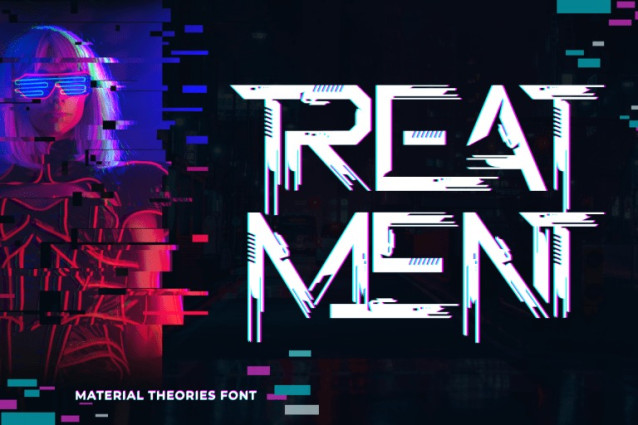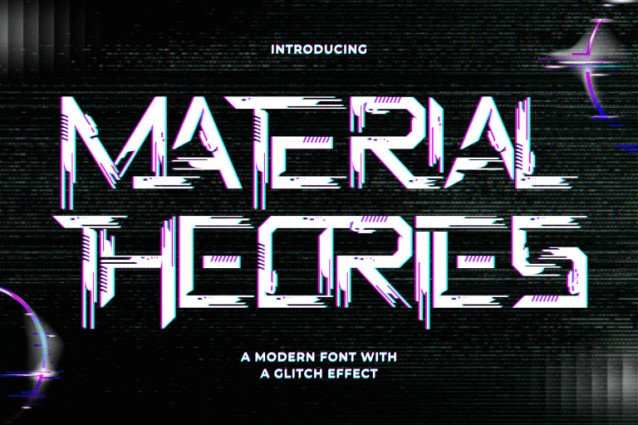
Material Theories Font
MATERIAL THEORIES – CYBERPUNK FONT is a glitch-inspired futuristic display sans serif typeface designed for bold digital and cyberpunk aesthetics. Built with sharp geometric structures and intentional distortion details, this font captures the raw energy of broken signals, digital noise, and futuristic technology. Including both Uppercase and Lowercase letters, approximately 100 custom special ligatures, complete Numerals & Punctuation, and extensive Accented characters, MATERIAL THEORIES empowers designers to create aggressive, high-impact typographic compositions. Its glitch-driven letterforms and experimental structure make it ideal for gaming, sci-fi posters, eSports branding, album covers, motion graphics, and cutting-edge tech visuals.
🔤Features:
Uppercase & Lowercase Letters
Around 100 Special Ligatures & Alternates
Accented Characters for multilingual support
🔤About 100 ligatures combined with Stylistic Alternates Font:
AC AD AL AN AR AS AT AU AV BE CA CE CH CO CT DE DI EA EC ED EE EL EM EN EP ER ES ET FE FO FR GE HA HE HI HO IE IC IL IN IO IR IS IT JU KE LA LE LI LL LO LY MA ME MI NC ND NE NG NO NT NS OC OF OM ON OO OP OR OT OU OW PA PR RA RD RE RI RO RS RT SE SH SI SO SS ST TA TE TH TI TO TR TT UM UN UR VE WI WO